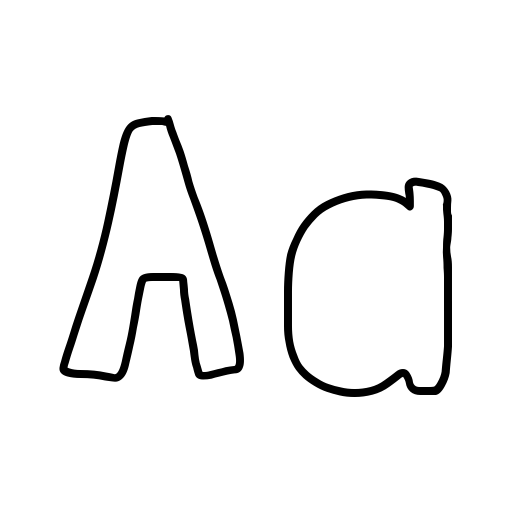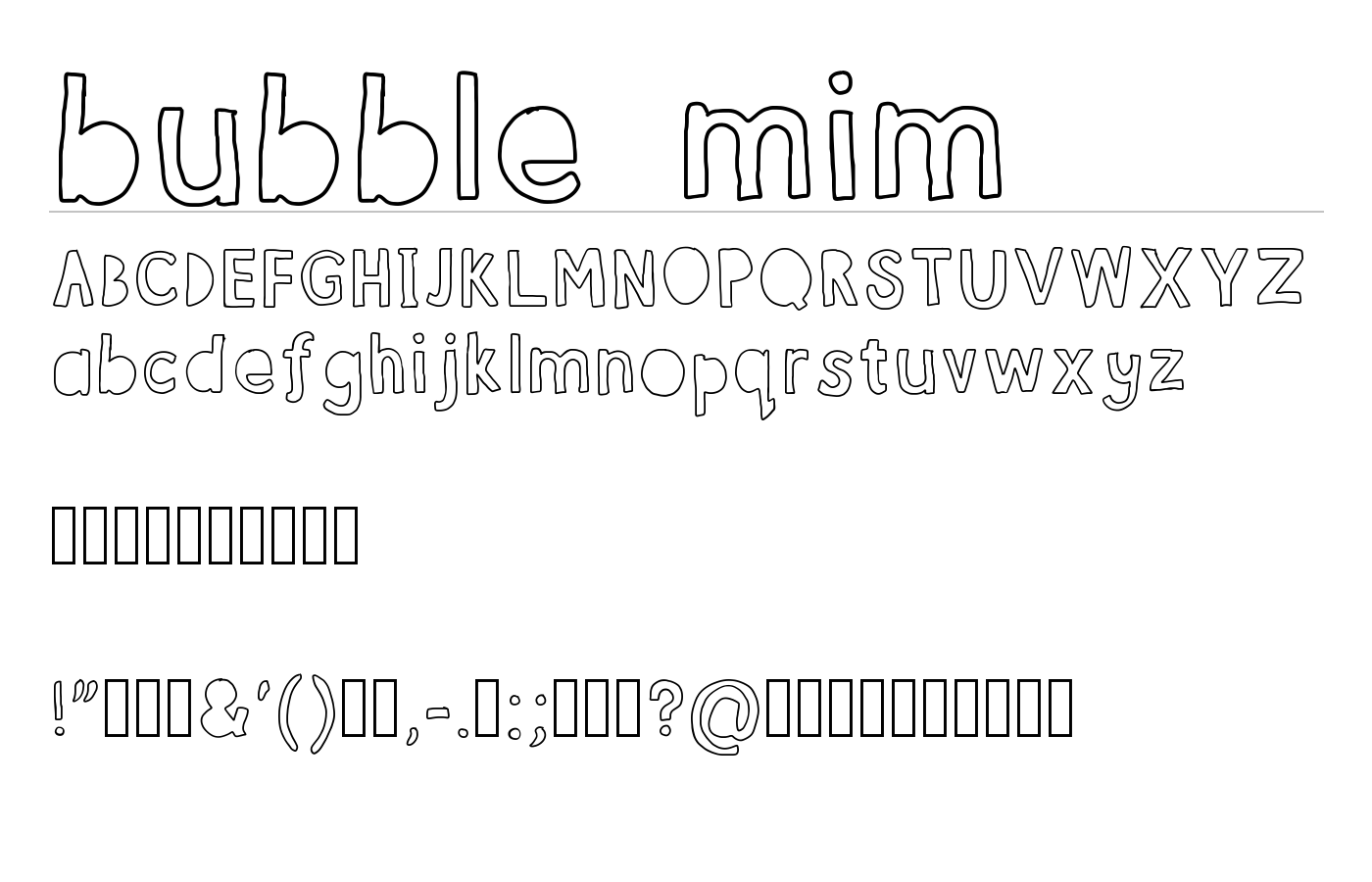
Bubble Mim is a playful and casual sans serif font with a hand-drawn, bubbly style that feels light and fun. Its irregular lines and soft, rounded shapes make it ideal for youthful and creative designs, perfect for informal branding, children’s projects, or artistic headlines where a friendly, approachable vibe is desired.
bubble mim Font
About bubble mim Font